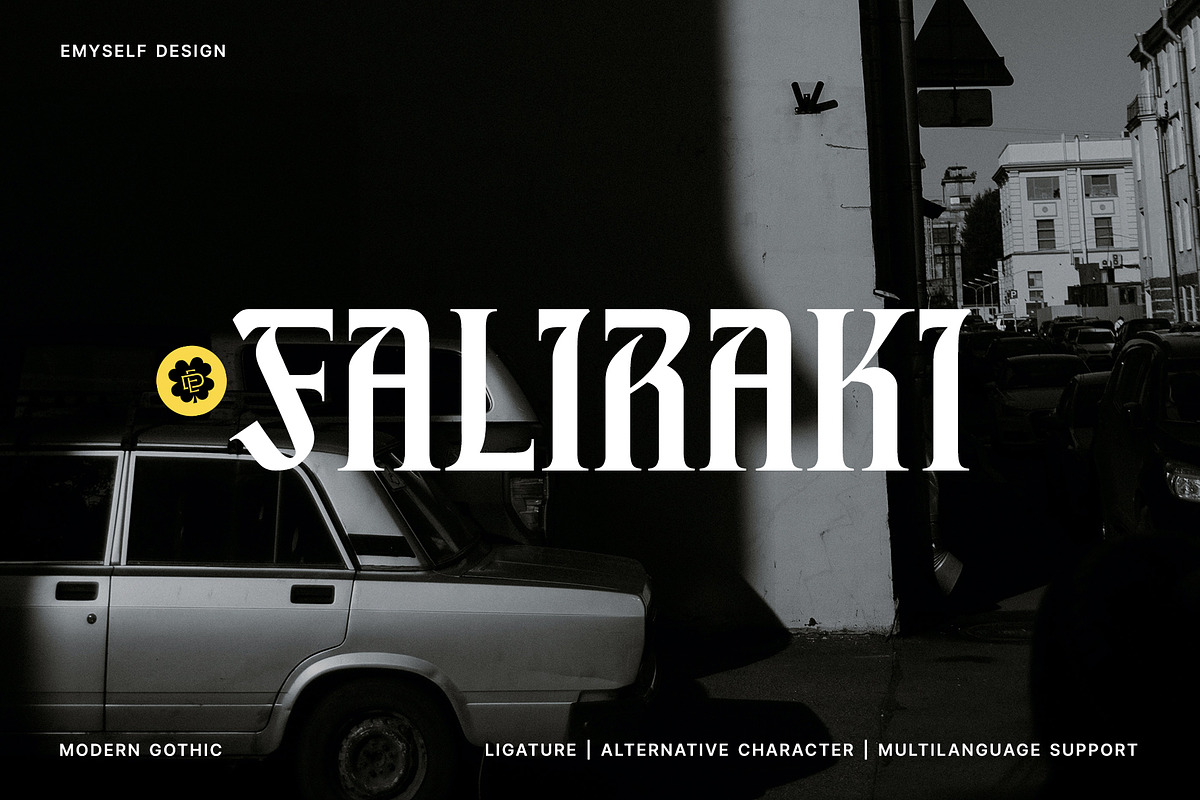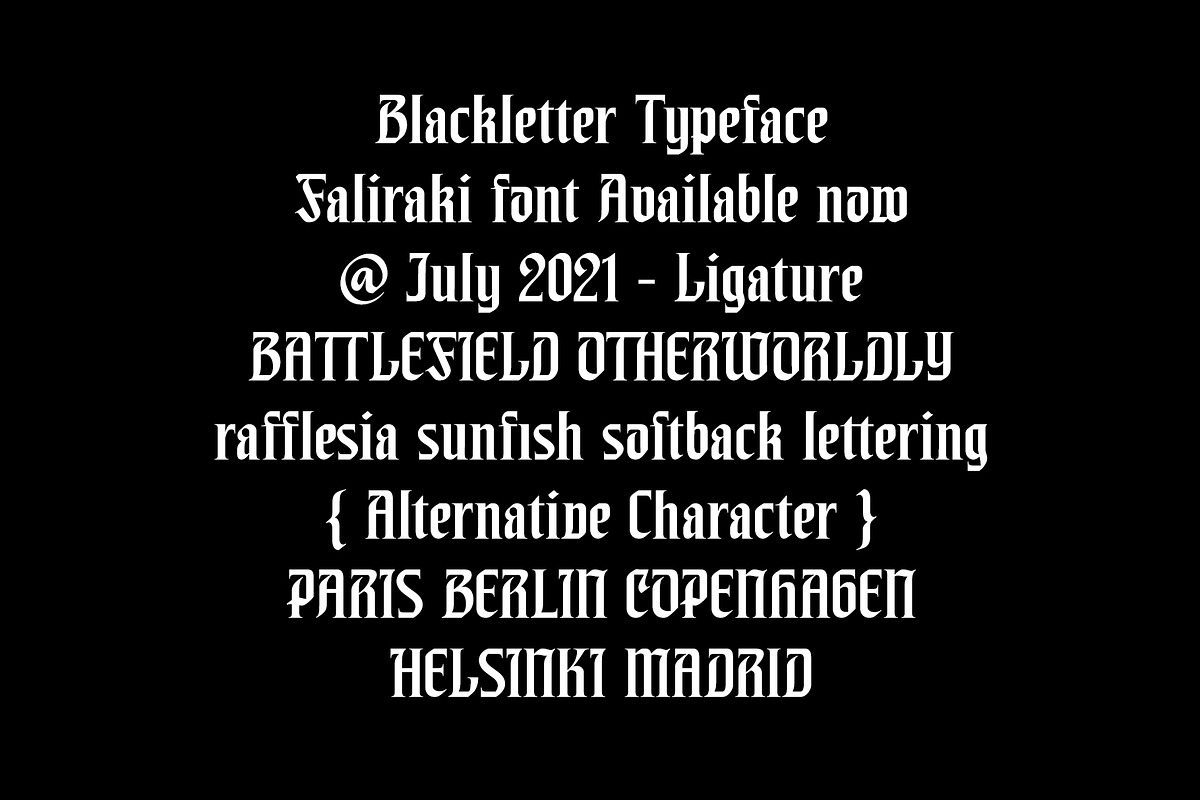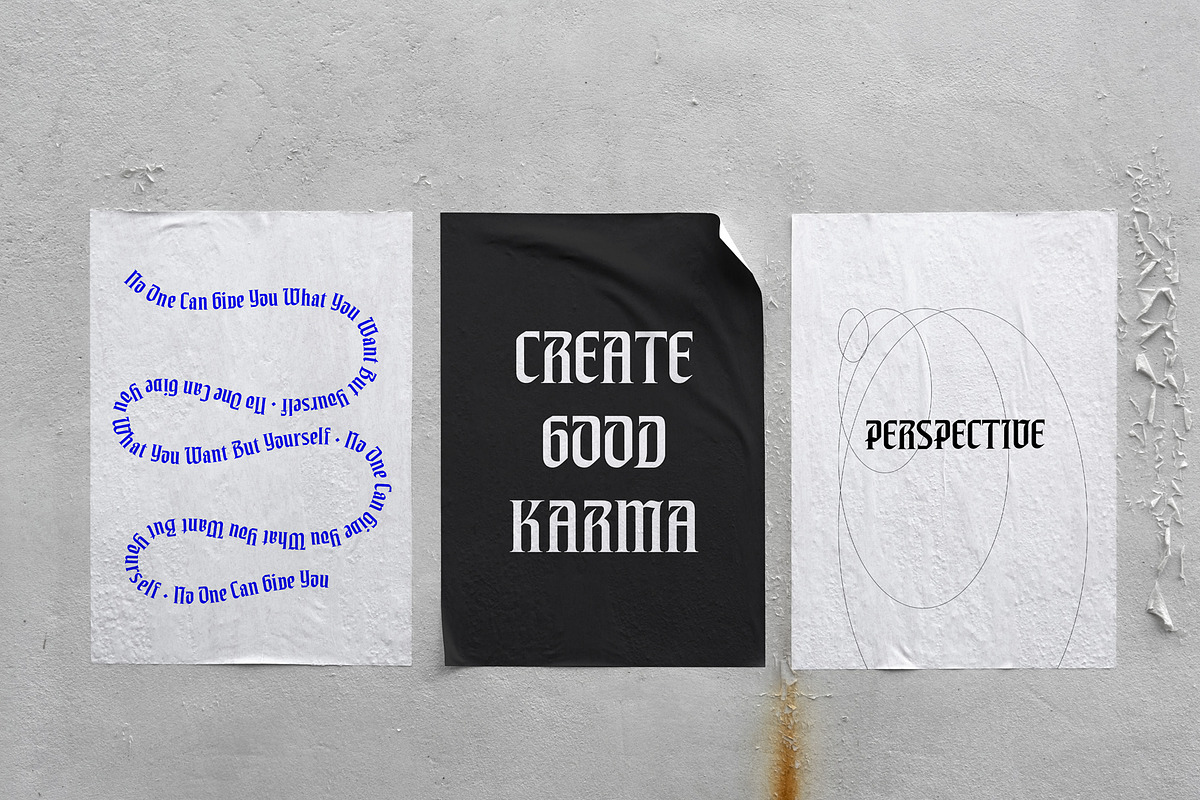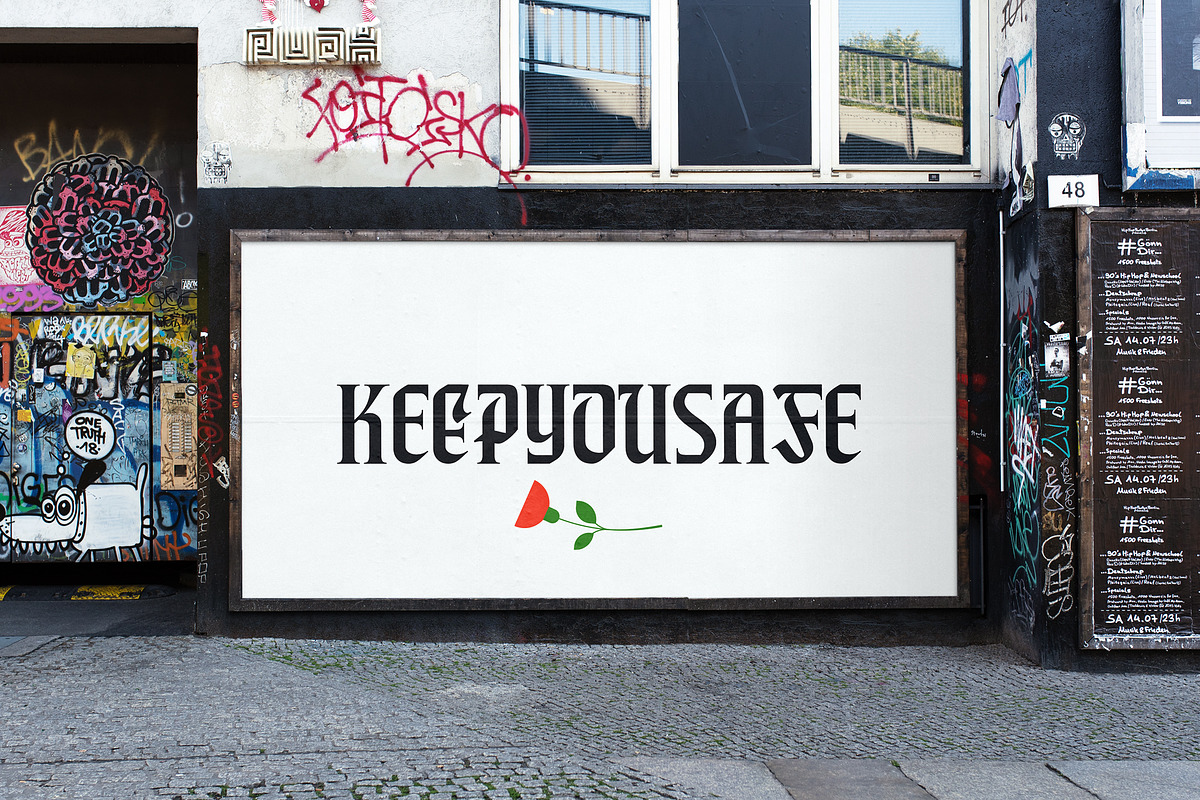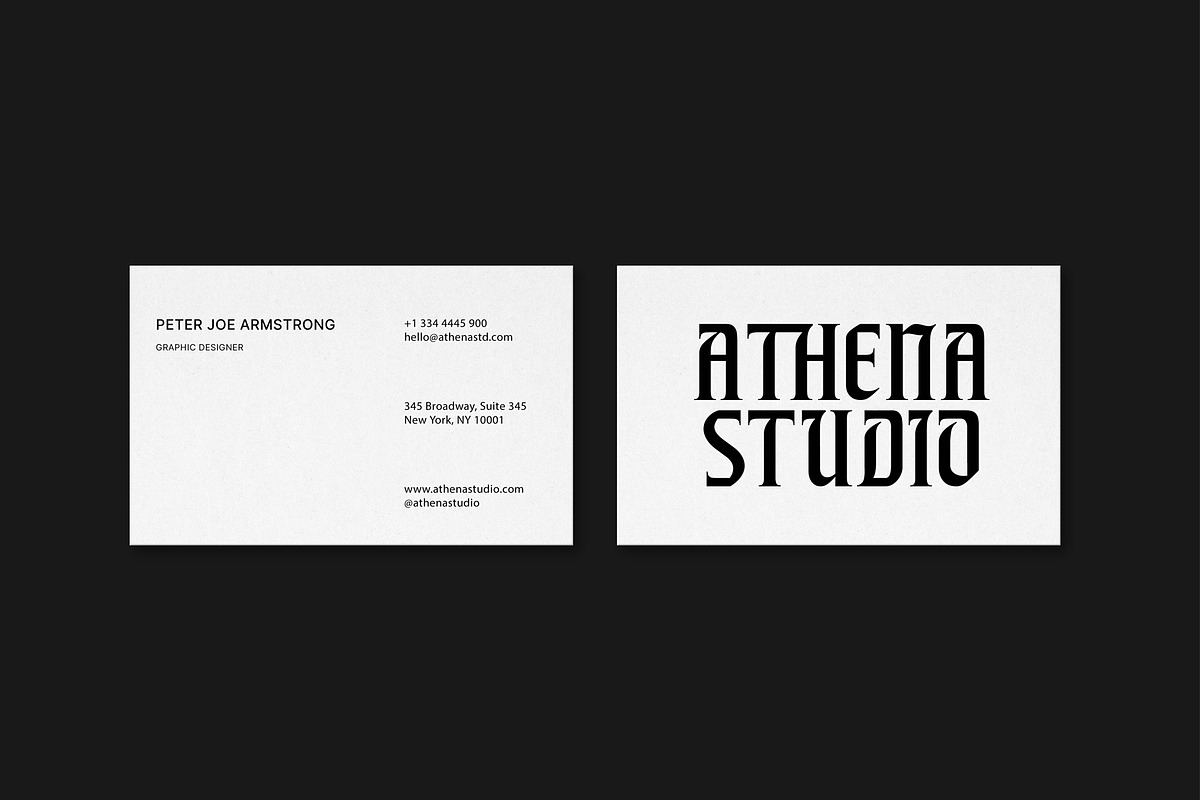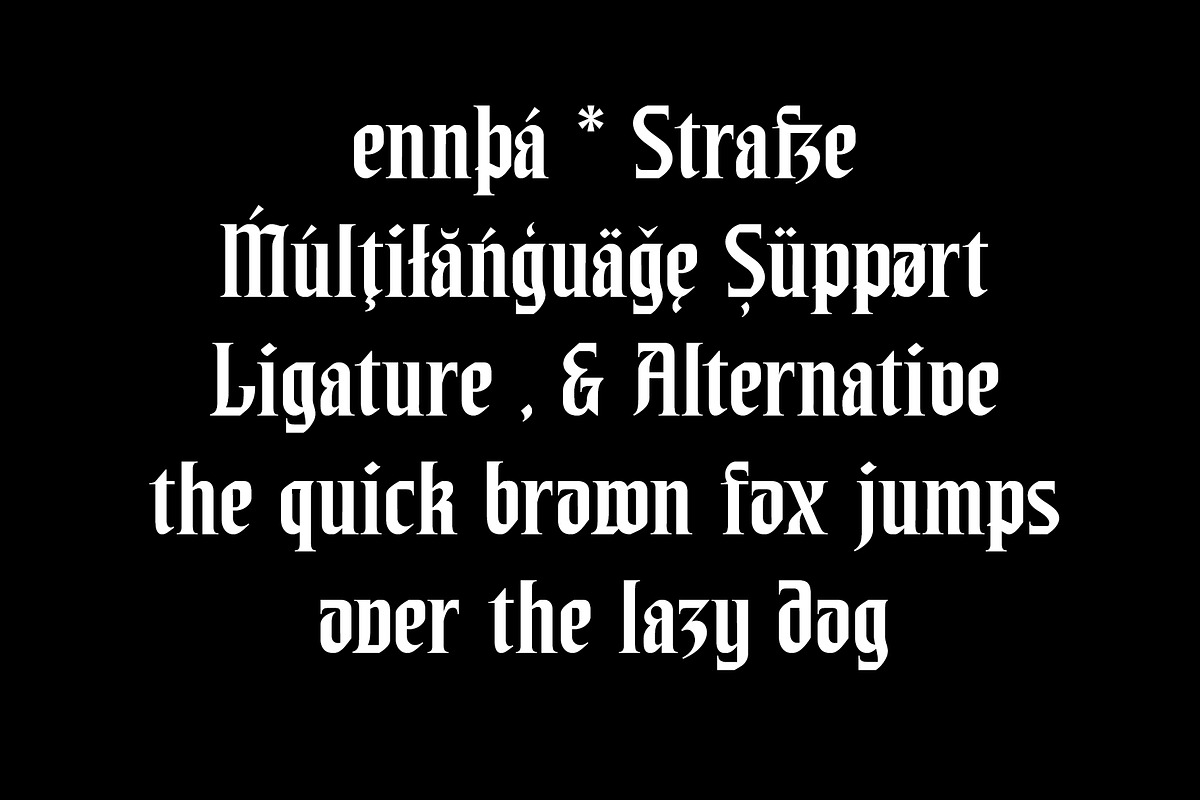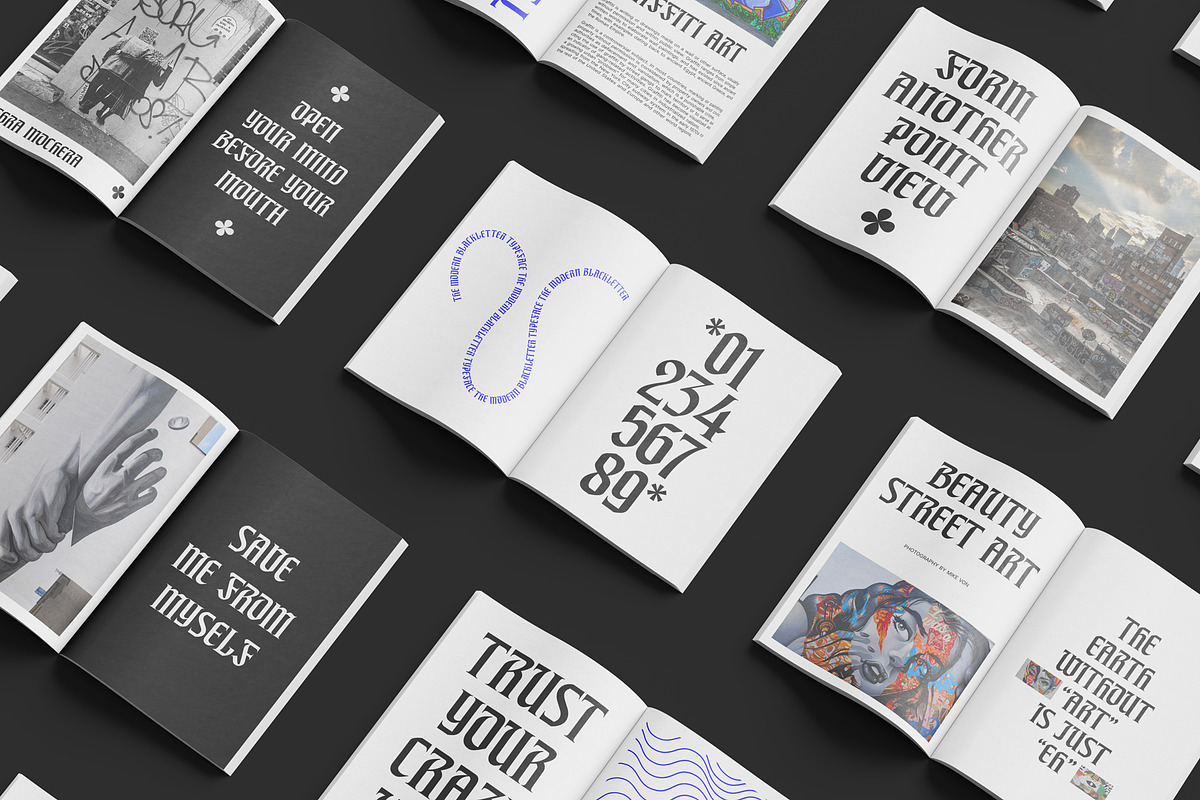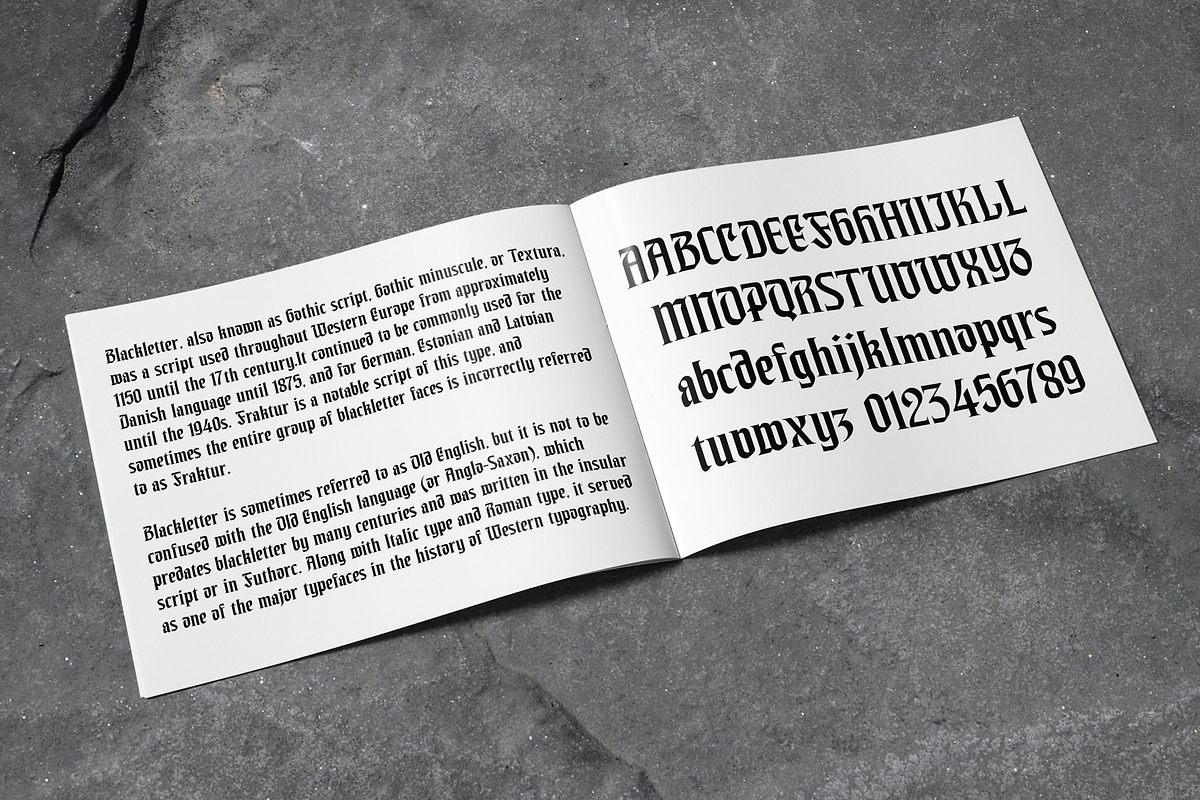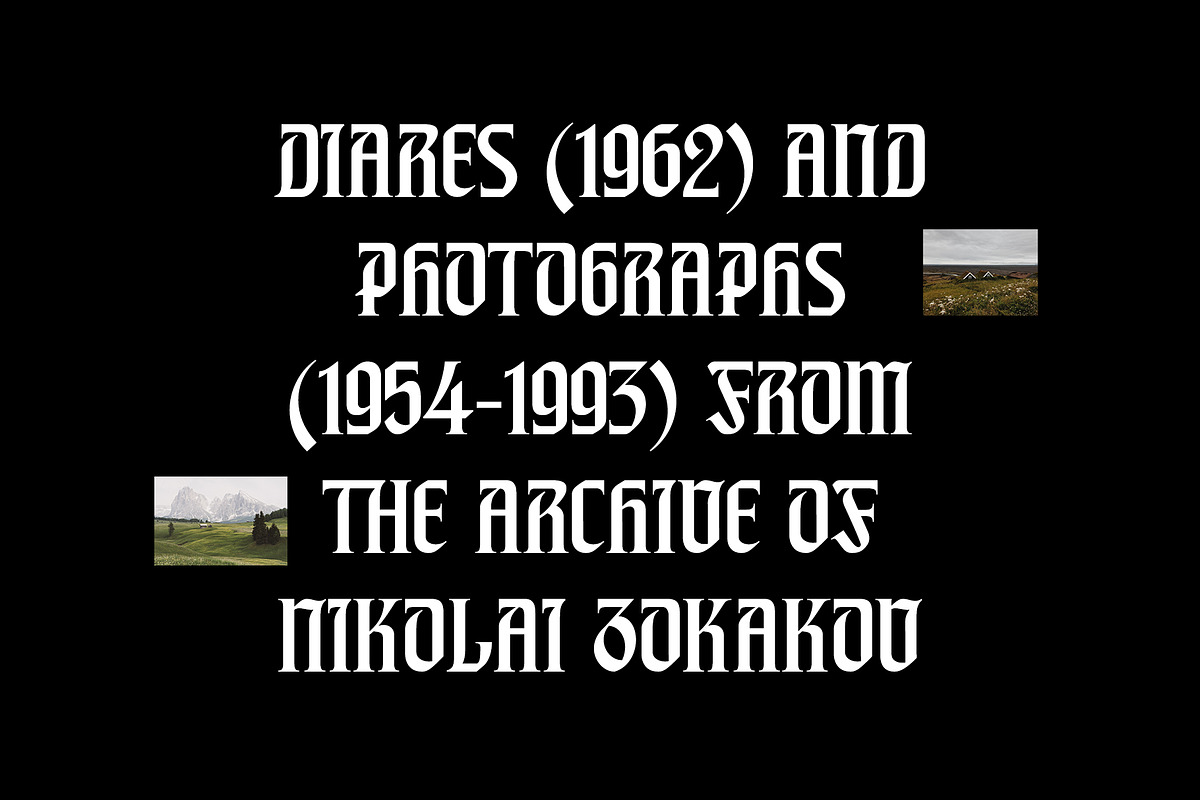
ED Faliraki Typeface
ED Faliraki is a modern Gothic font with a serif foot that looks elegant. This font style is inspired by Peter Weigel Hohenzollern and is designed to be easy to match with other fonts. This font has several features such as ligatures, alternative characters, and multi-language support.
This font is perfect for your design needs such as magazines, books, posters, packaging designs, logos, social media designs, t-shirts, and more.